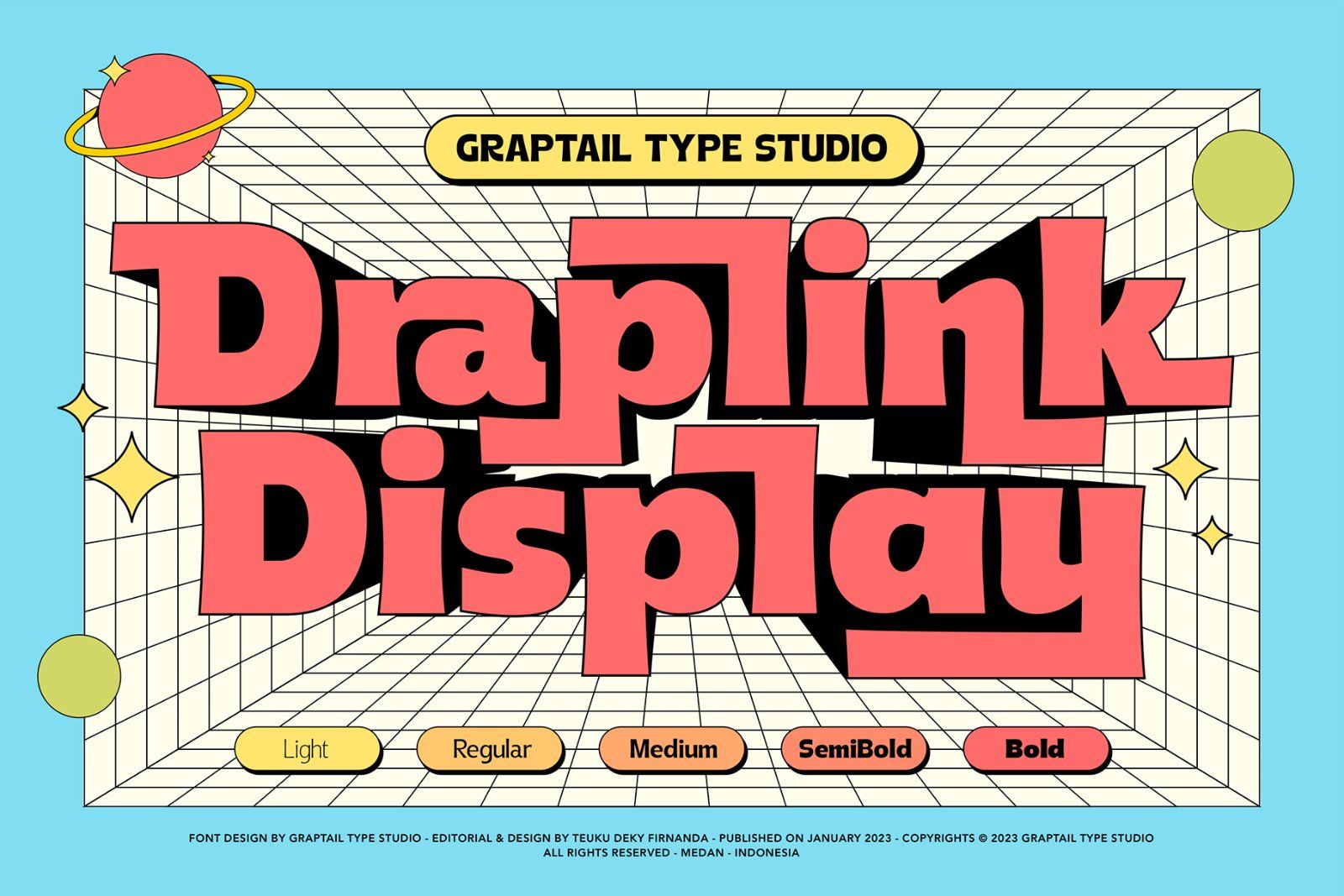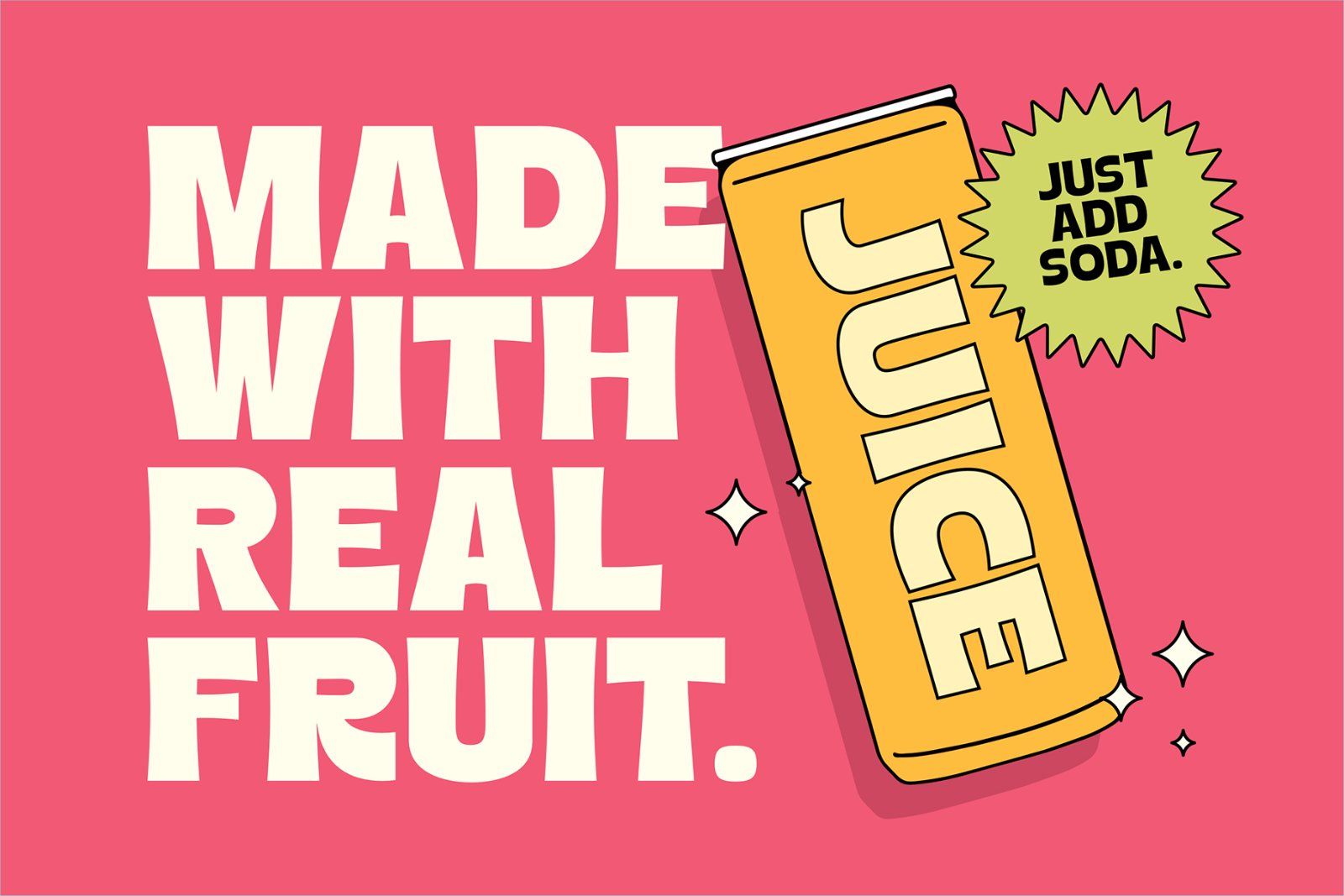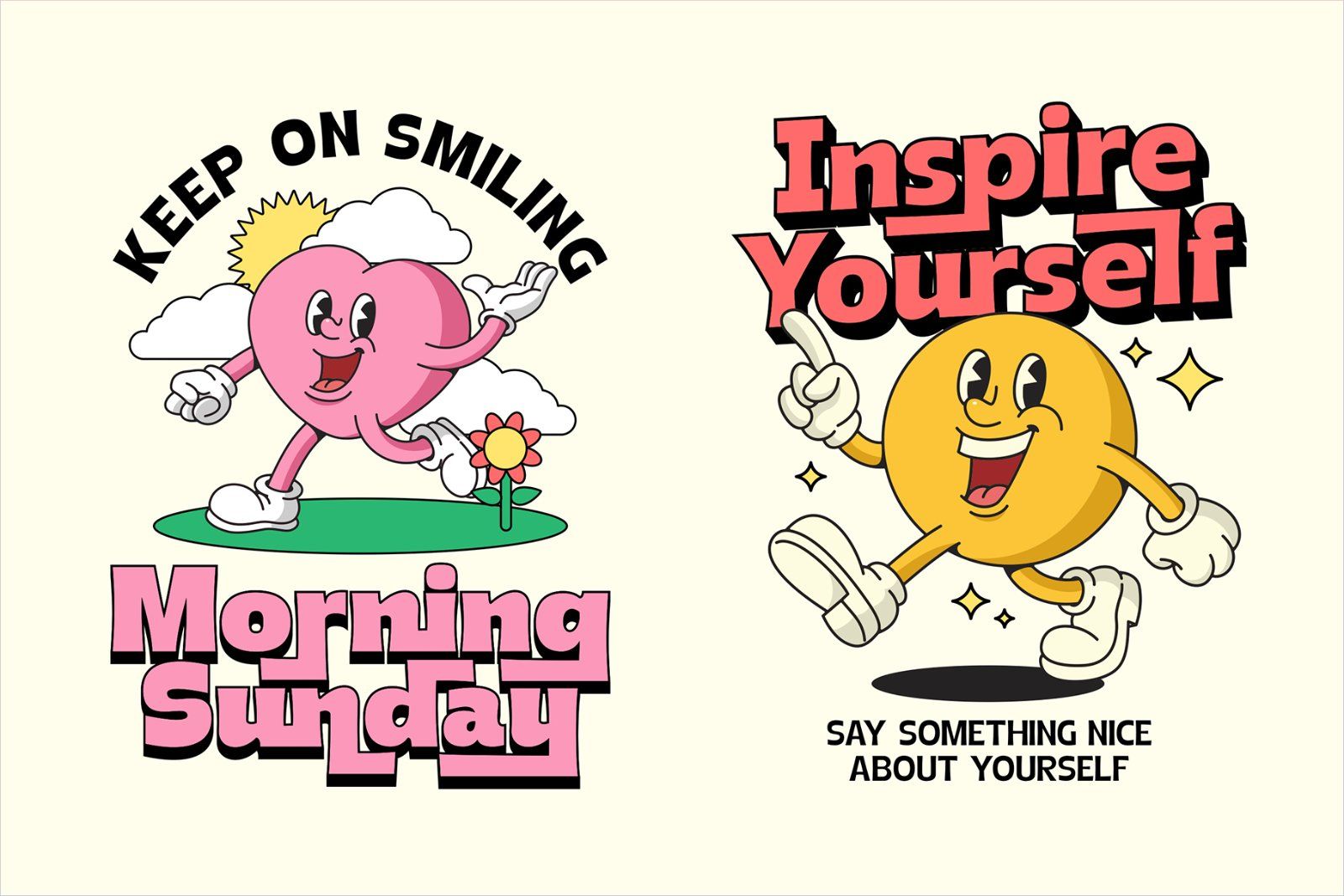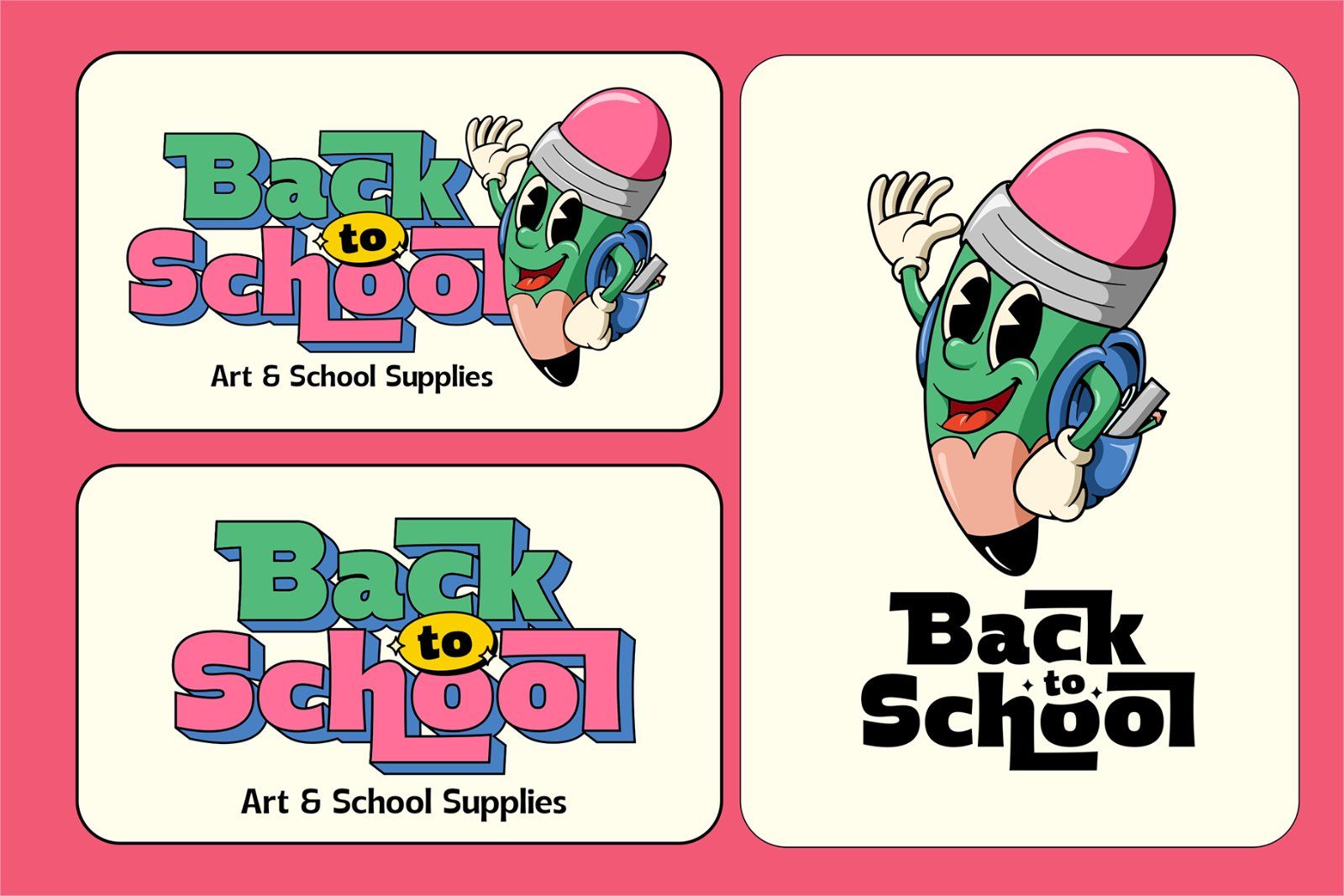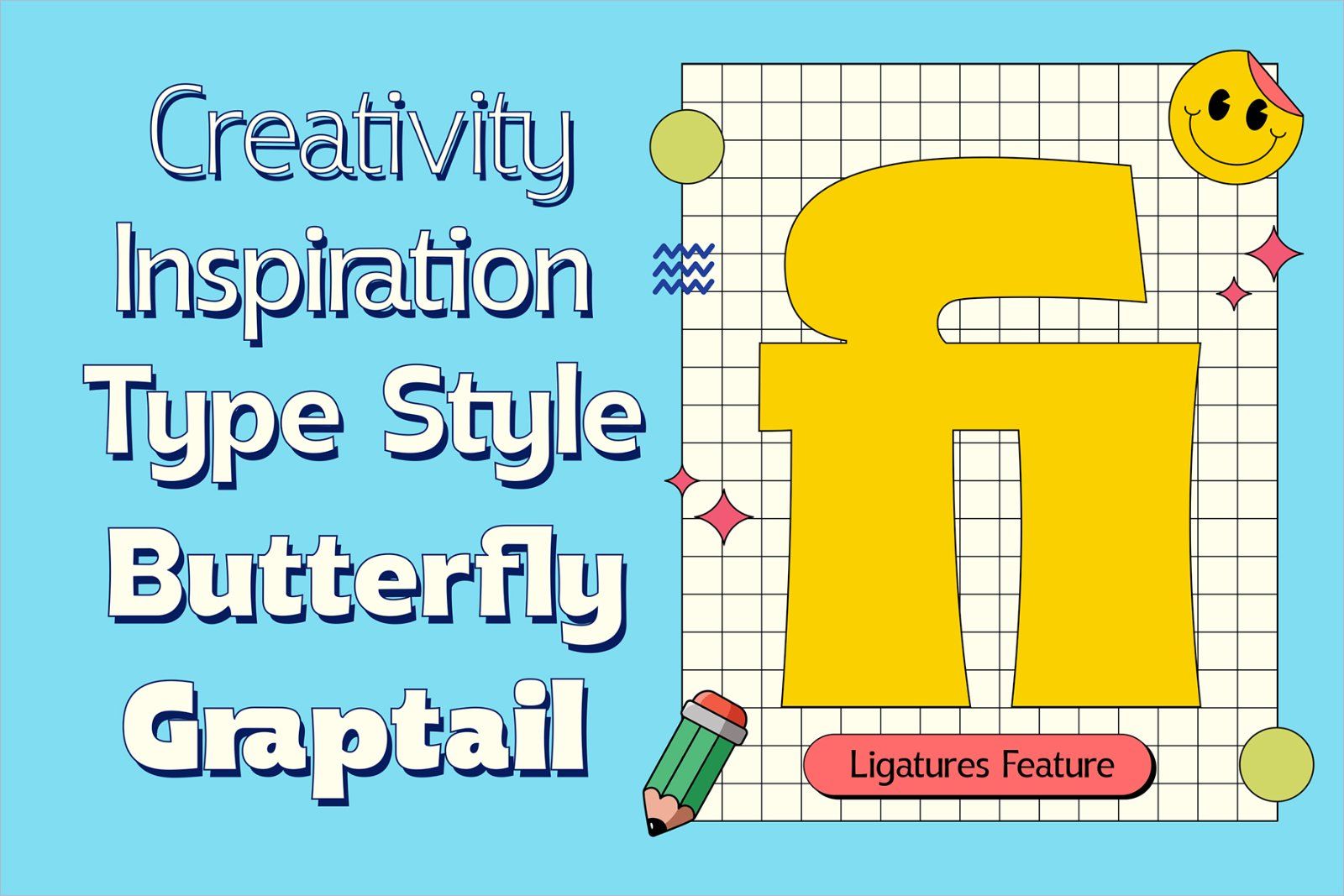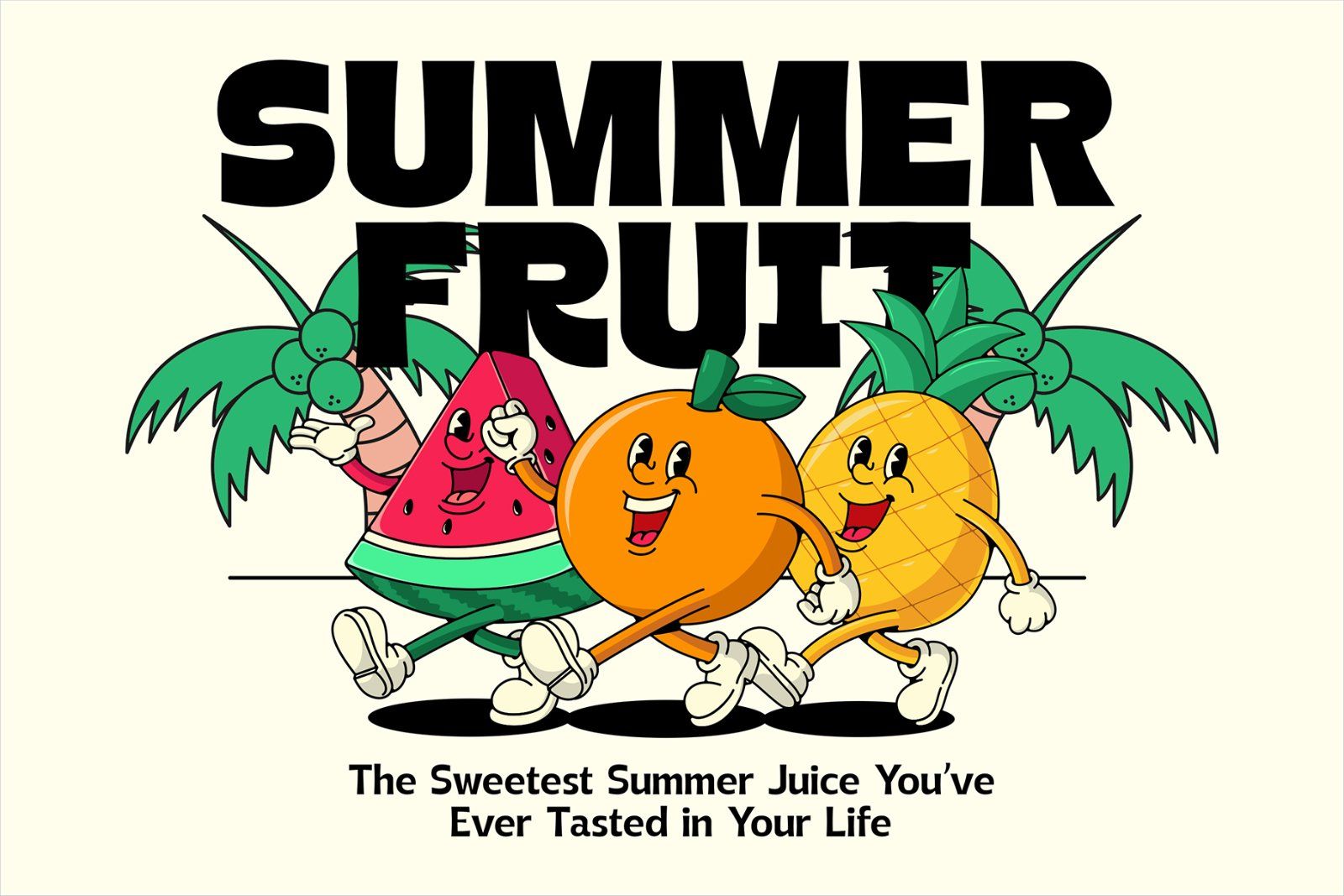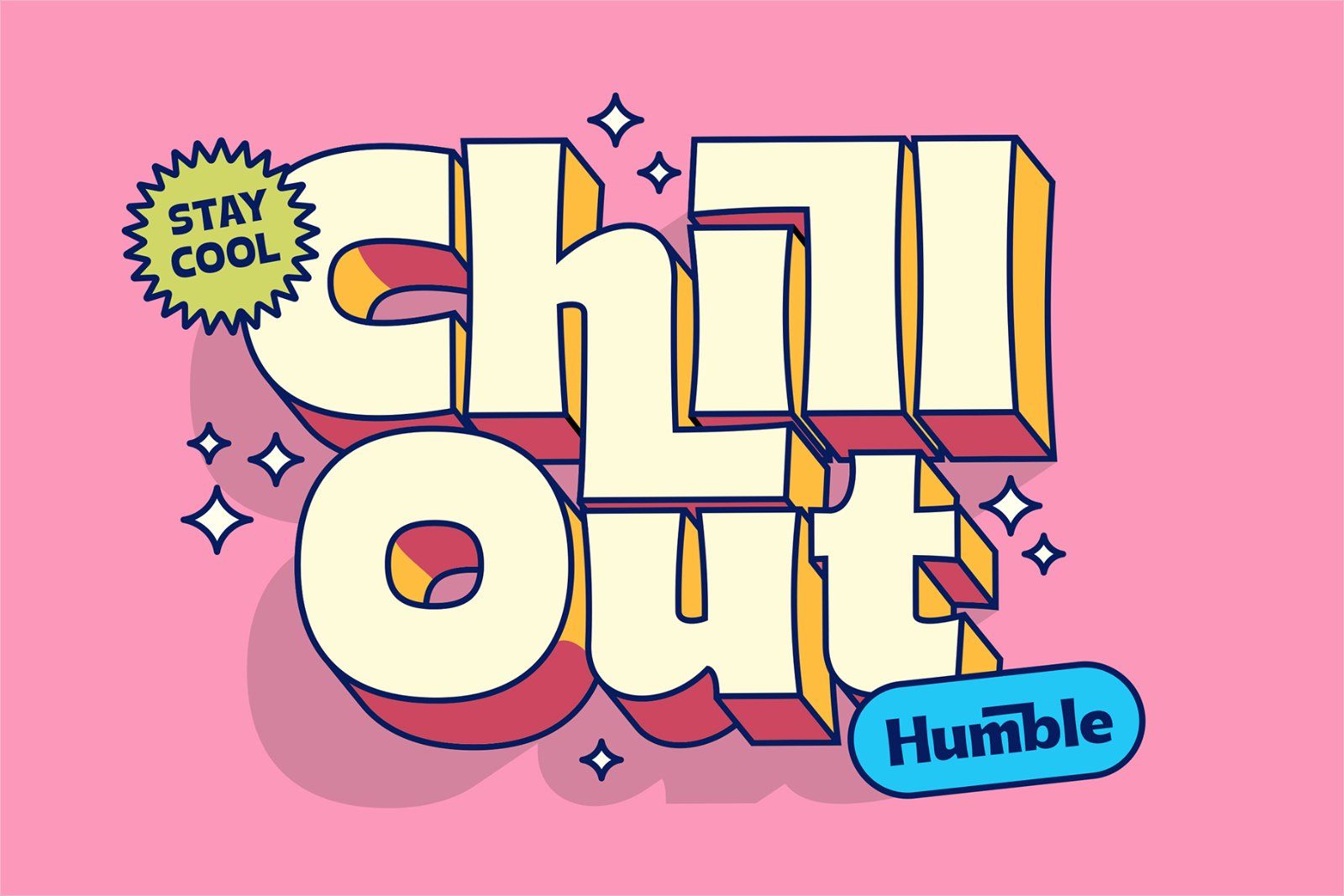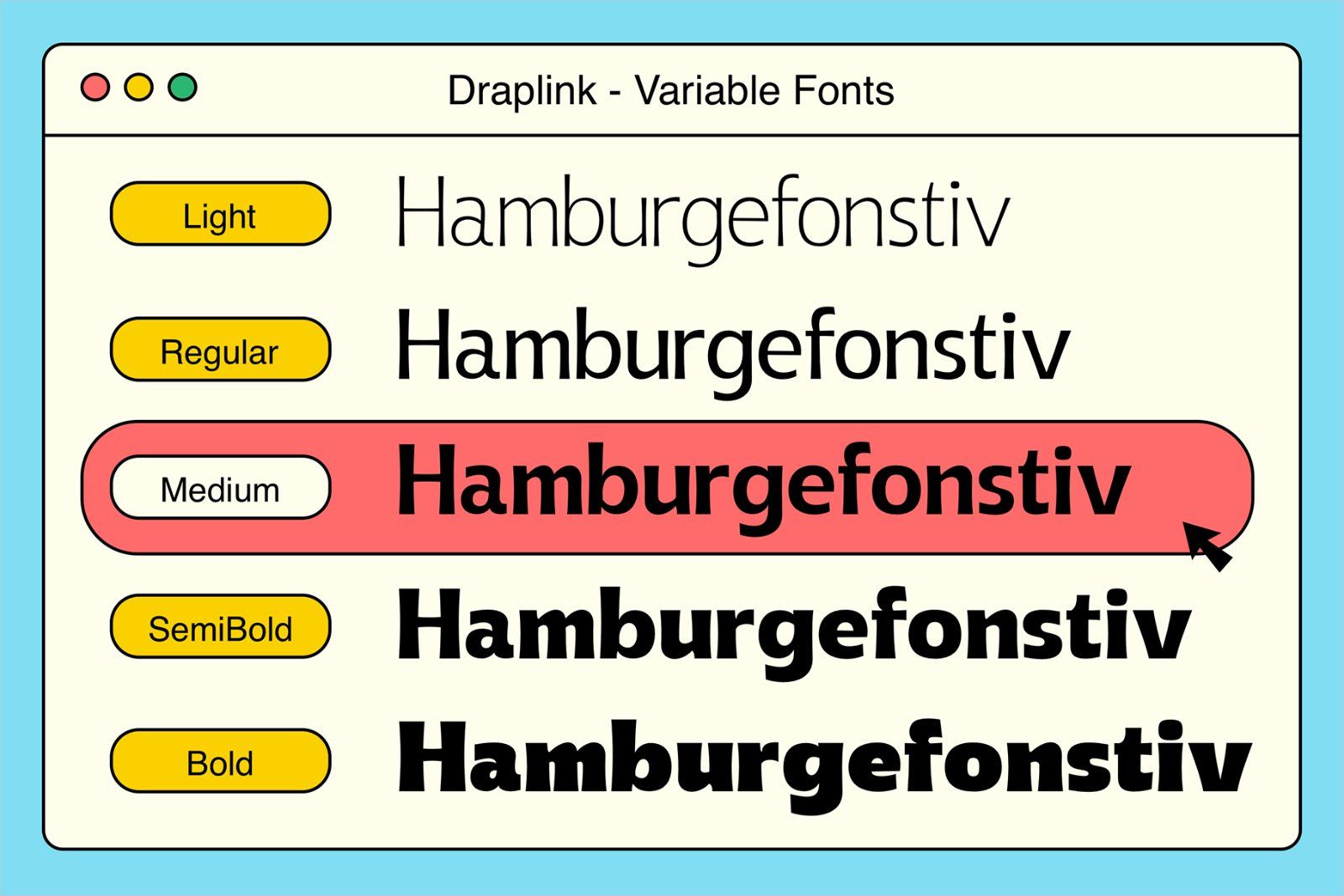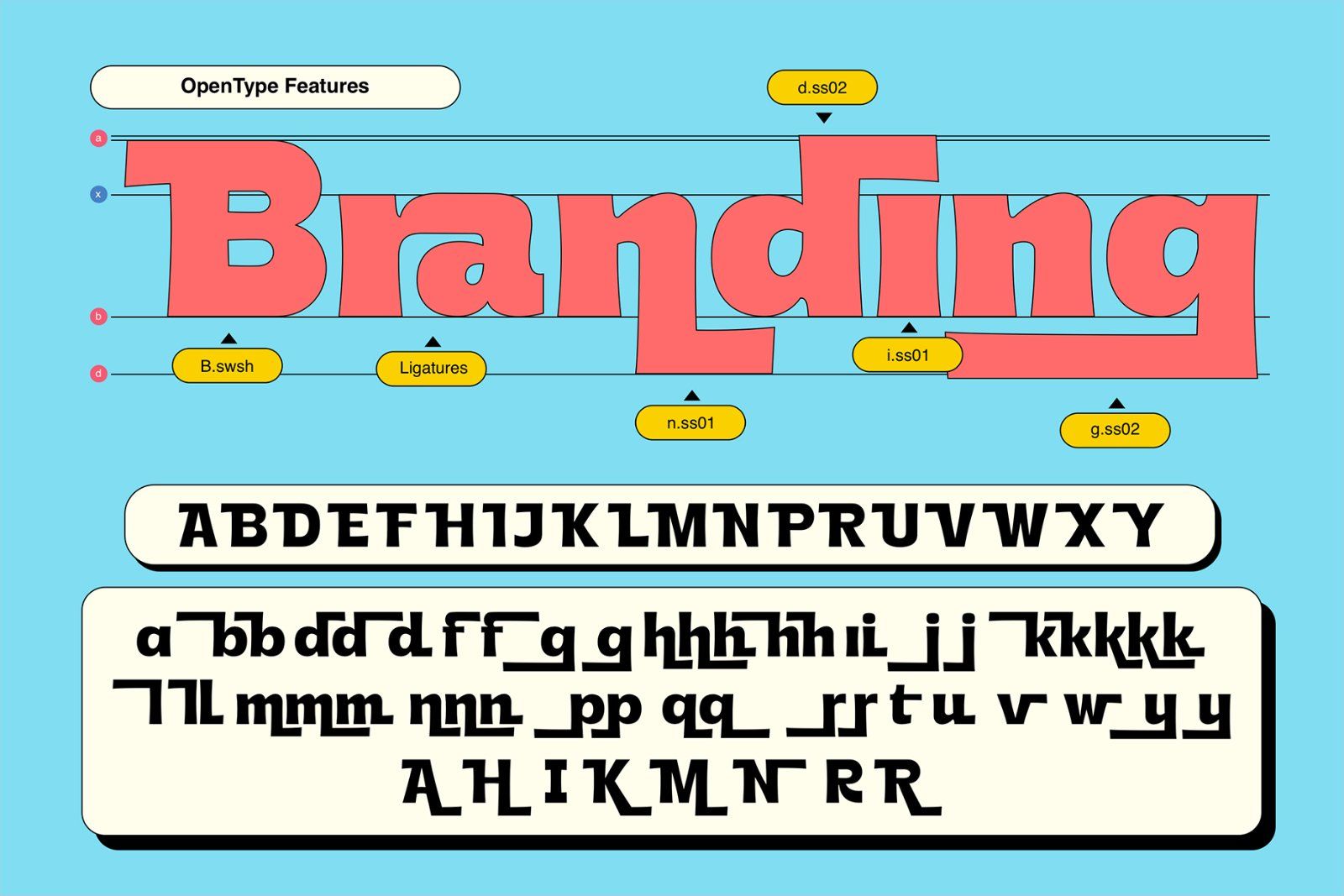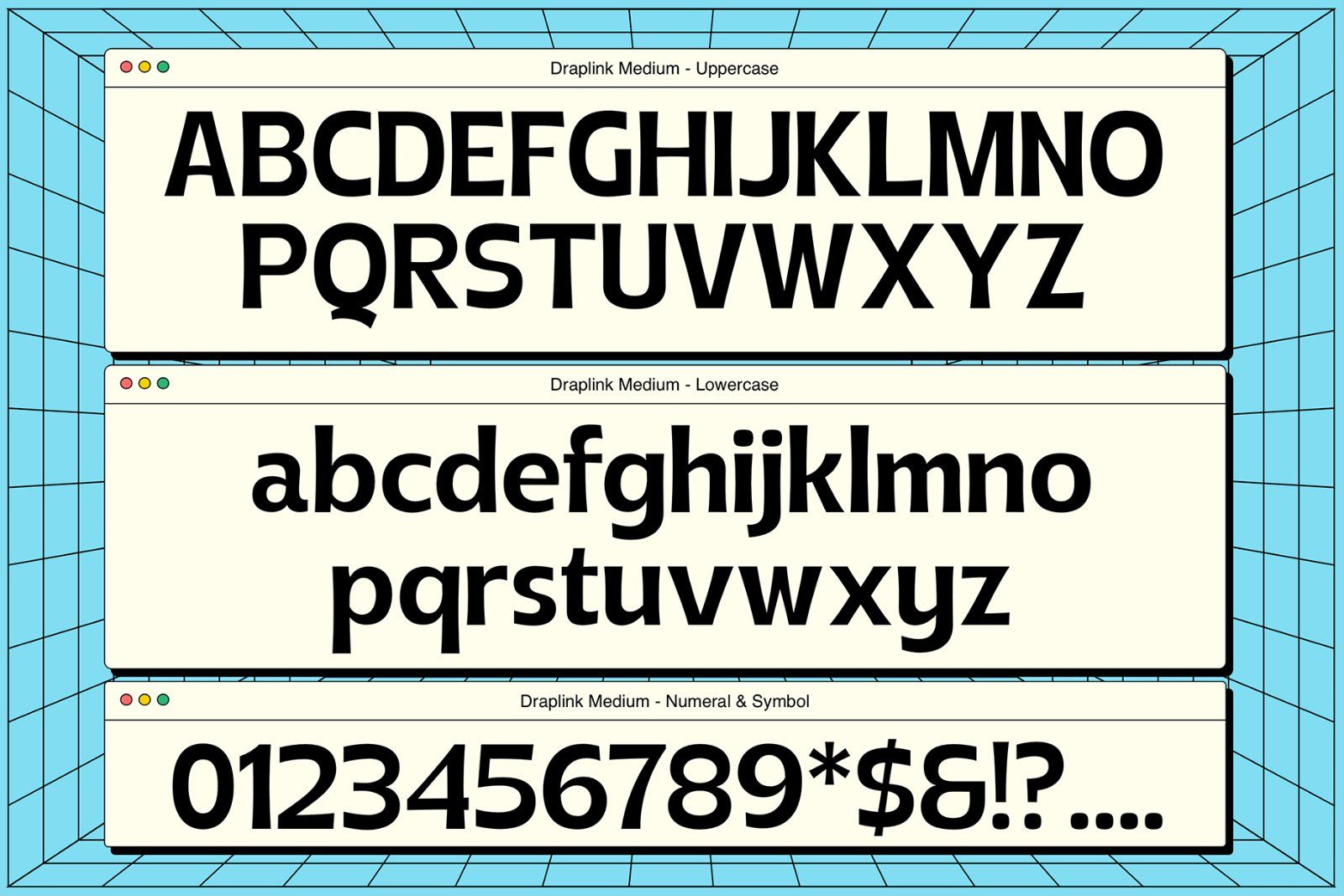
Introducing Draplink, a retro-inspired font that evokes 1950s to 90s nostalgia. This font is perfect for creating vintage-themed designs and giving it a touch of nostalgia and personality.
Draplink features a soft, sturdy design with bold corners and unique letter shapes. This font also has 5 variable fonts and alternative ligatures, allowing you to create many different looks with the same font.